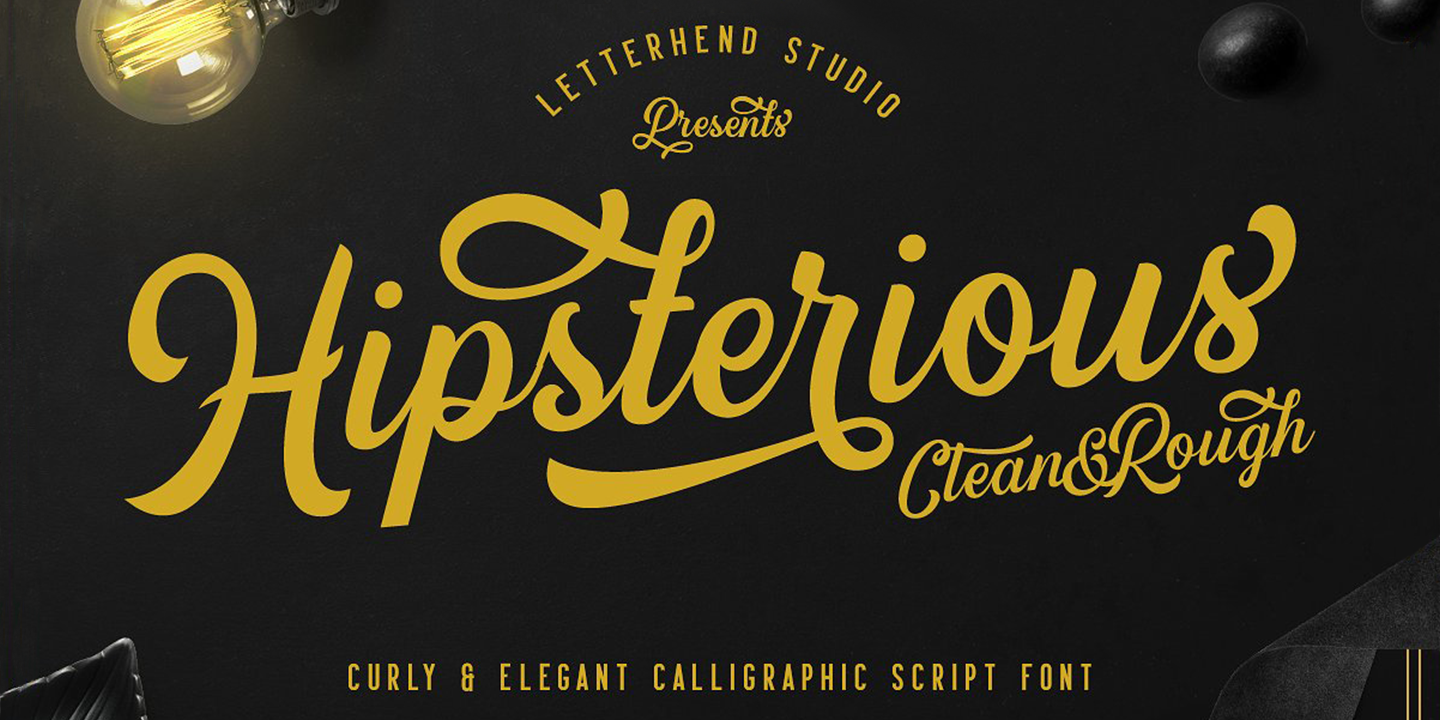
Hipsterious Font is perfect for vintage branding projects, retro posters, craft brewery logos, artisan coffee shop signage, indie band merchandise, vintage restaurant menus, nostalgic packaging designs, and authentic handmade product labels.
What makes Hipsterious Font exciting is its unique blend of vintage charm and contemporary edge that captures the authentic hipster aesthetic. The distinctive character shapes and weathered texture create an instantly recognizable style that appeals to modern audiences seeking genuine authenticity.
Hipsterious Font family includes regular, distressed, outline, shadow, and condensed versions, along with decorative extras and ornamental elements that enhance the vintage typography experience.
Transform your creative projects with the authentic appeal of Hipsterious Font Free Download. This distinctive typeface perfectly captures the essence of vintage craftsmanship while maintaining modern functionality across all design applications. The carefully crafted letterforms feature subtle imperfections that add character and authenticity to your work. Creative professionals consistently choose this font for projects requiring a genuine vintage aesthetic without sacrificing readability or professionalism. Its versatile nature makes it suitable for both large display text and smaller applications, ensuring consistent brand identity throughout your design system. Experience the perfect combination of nostalgic charm and contemporary usability that makes your projects stand out in today's competitive market with this exceptional typography solution.